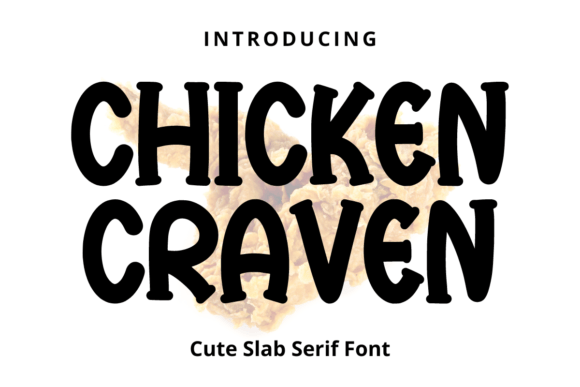
Introducing Chicken Craven Font: The Ultimate Choice for Eye-Catching Designs
In the world of typography, fonts play a crucial role in making or breaking a design. A well-chosen font can elevate your design, making it more engaging, readable, and memorable. If you’re looking for a font that can add a touch of cuteness and thickness to your design, look no further than the Chicken Craven Font. In this article, we’ll explore the features, benefits, and uses of this amazing slab serif font.
What is Chicken Craven Font?
Chicken Craven Font is a thick and cute slab serif font that has gained popularity among designers and typographers. Its wide characters and chunky serifs make it an ideal choice for creating eye-catching designs that grab attention. The font’s unique design makes it perfect for use in various applications, including headlines, t-shirt typography, banners, product labels, and more.
Key Features of Chicken Craven Font
- Thick and Cute Design: Chicken Craven Font boasts a thick and cute design that makes it perfect for designs that require a playful touch.
- Wide Characters: The font’s wide characters ensure that your text is readable and visible, even from a distance.
- Chunky Serifs: The chunky serifs add a decorative touch to your text, making it more engaging and attention-grabbing.
- Slab Serif Design: The font’s slab serif design gives it a unique and distinctive look that sets it apart from other fonts.
Benefits of Using Chicken Craven Font
Using Chicken Craven Font offers several benefits, including:
- Improved Readability: The font’s wide characters and clear design make it easy to read, even for large blocks of text.
- Increased Engagement: The font’s cute and playful design can help increase engagement and interaction with your audience.
- Versatility: Chicken Craven Font can be used in various applications, from digital designs to print materials.
- Unique Look: The font’s distinctive design ensures that your text stands out from the crowd and grabs attention.
Use Cases for Chicken Craven Font
Chicken Craven Font is a versatile font that can be used in various applications, including:
- Headlines and Titles: Use the font to create attention-grabbing headlines and titles that draw readers in.
- T-Shirt Typography: The font’s bold design makes it perfect for use on t-shirts, hoodies, and other apparel.
- Banners and Posters: Use the font to create eye-catching banners and posters that grab attention.
- Product Labels: The font’s clear design makes it perfect for use on product labels, packaging, and branding materials.
- Digital Designs: Use the font in digital designs, such as social media graphics, website headers, and more.
Tips for Using Chicken Craven Font
To get the most out of Chicken Craven Font, follow these tips:
- Use it Sparingly: Use the font sparingly to avoid overwhelming your design. Use it for headlines, titles, and key messages.
- Pair it with Other Fonts: Pair the font with other fonts to create visual interest and hierarchy.
- Experiment with Colors: Experiment with different colors to find the perfect combination that works with your brand.
- Consider Legibility: Ensure that your text is legible, even at small sizes.
In conclusion, Chicken Craven Font is an excellent choice for designers looking for a thick and cute slab serif font. Its wide characters, chunky serifs, and unique design make it perfect for eye-catching designs. With its versatility, readability, and unique look, this font is sure to elevate your designs and grab attention. Whether you’re designing headlines, t-shirt typography, banners, or product labels, Chicken Craven Font is an excellent choice.
- What is Chicken Craven Font?: Chicken Craven Font is a thick and cute slab serif font designed for eye-catching designs.
- What are the key features of Chicken Craven Font?: The font features wide characters, chunky serifs, and a unique slab serif design.
- What are the benefits of using Chicken Craven Font?: The font offers improved readability, increased engagement, versatility, and a unique look.
- How can I use Chicken Craven Font?: Use the font for headlines, t-shirt typography, banners, product labels, and digital designs.